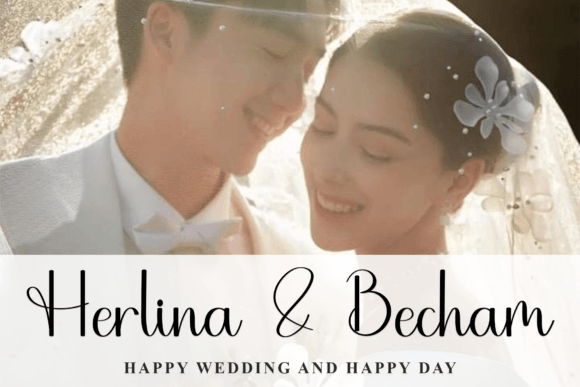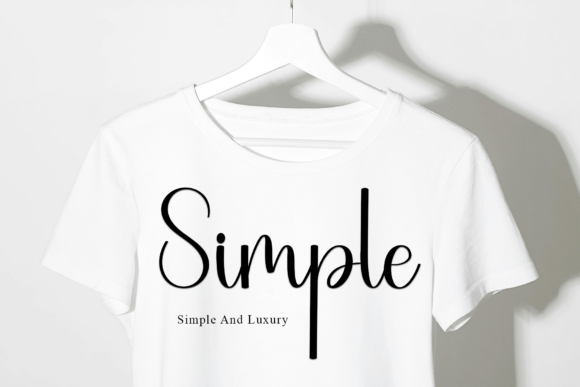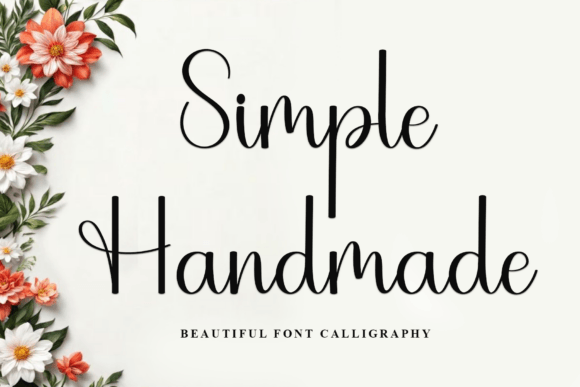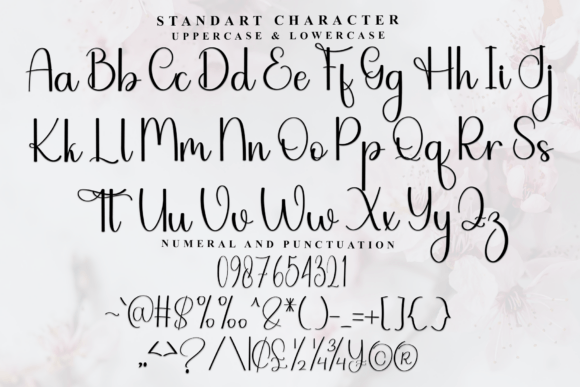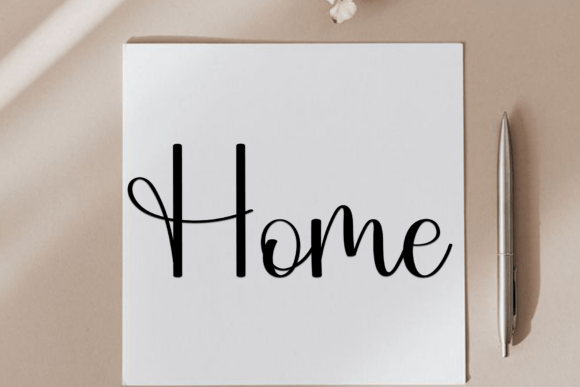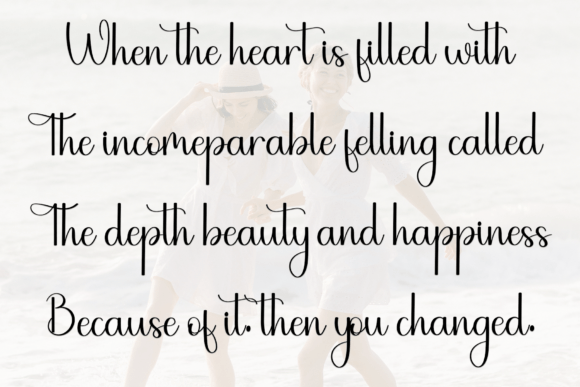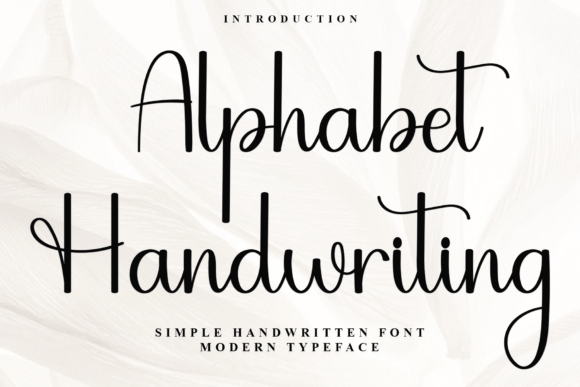
Introducing Alphabet Handwriting Font: A Festive and Merry Typeface for Your Holiday Designs
Are you looking for a font that captures the spirit of the holiday season? Do you want to add a touch of magic to your designs, greeting cards, and gift tags? Look no further than Alphabet Handwriting Font, a beautiful and festive typeface that’s perfect for bringing cheer and nostalgia to your words.
The Charm of Alphabet Handwriting Font
Alphabet Handwriting Font is a decorative typeface that’s designed to evoke the feeling of handwriting, with a whimsical flair that’s perfect for the holiday season. Its decorative elements, such as intricate swashes and flourishes, add a touch of enchantment to your designs, making them stand out from the crowd.
Whether you’re a designer, crafter, or DIY enthusiast, Alphabet Handwriting Font is a versatile typeface that can be used for a wide range of projects, from greeting cards and gift tags to holiday-themed posters, banners, and social media graphics.
Holiday seasons are a time for celebration, and what better way to celebrate than with a font that’s specifically designed for the occasion? Alphabet Handwriting Font is perfect for:
• Greeting cards: Create personalized and festive greeting cards for friends and family.
• Gift tags: Add a touch of magic to your gift tags and make them stand out.
• Holiday-themed posters and banners: Create eye-catching posters and banners for your holiday events and promotions.
• Social media graphics: Add a festive touch to your social media graphics and make them more engaging.
Why Choose Alphabet Handwriting Font?
So why choose Alphabet Handwriting Font over other typefaces? Here are just a few reasons:
• Unique and festive design: Alphabet Handwriting Font has a unique and festive design that’s perfect for the holiday season.
• Whimsical flair: The font’s whimsical flair adds a touch of enchantment to your designs.
• Versatile: Alphabet Handwriting Font can be used for a wide range of projects, from greeting cards to social media graphics.
Tips for Using Alphabet Handwriting Font
Here are a few tips for using Alphabet Handwriting Font in your designs:
• Use it sparingly: Use Alphabet Handwriting Font sparingly to add a touch of magic to your designs.
• Pair it with other fonts: Pair Alphabet Handwriting Font with other fonts to create a unique and interesting design.
• Experiment with colors and textures: Experiment with different colors and textures to add depth and interest to your designs.
Alphabet Handwriting Font is a beautiful and festive typeface that’s perfect for adding a touch of magic to your holiday designs. With its decorative elements and whimsical flair, it’s sure to bring cheer and nostalgia to your words. Whether you’re a designer, crafter, or DIY enthusiast, Alphabet Handwriting Font is a versatile typeface that’s sure to become a favorite in your collection.